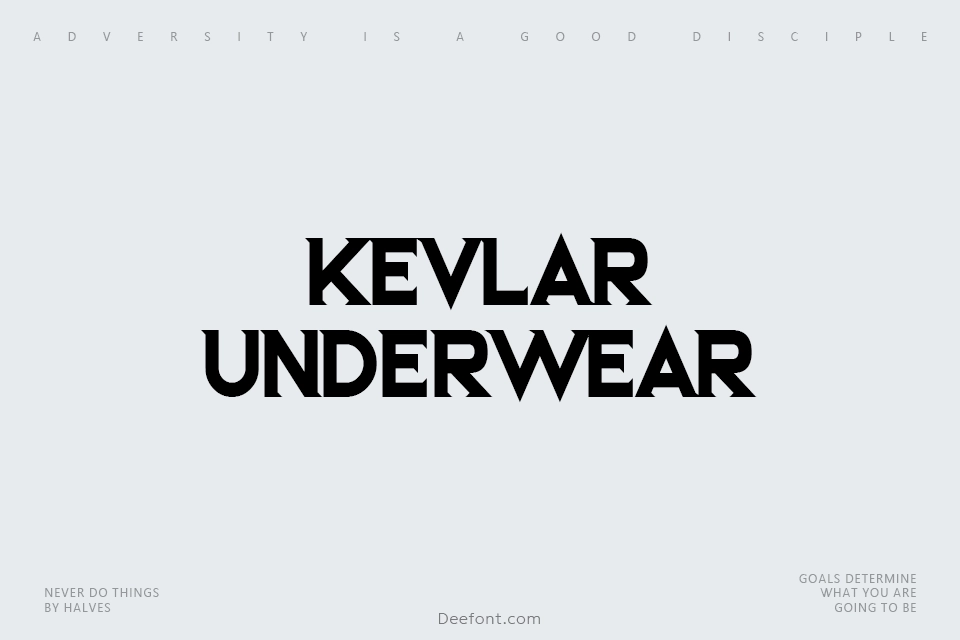
Kevlar Underwear Font
Kevlar Underwear is a bold and geometric gothic font that combines modern aesthetics with a futuristic appeal. Featuring striking characters with sharp edges and contemporary styling, this typeface excels in creating impactful display designs and attention-grabbing headlines. The font’s distinctive personality makes it ideal for branding, posters, and creative projects that demand a bold visual presence. With its clean, geometric structure and modern construction, Kevlar Underwear delivers powerful typography for innovative designers seeking to make a statement in their creative work.